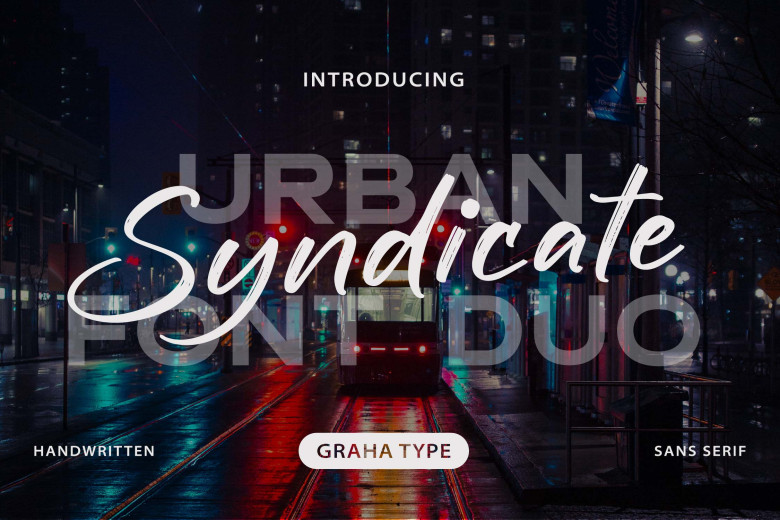
Urban Syndicate Font Duo
Urban Syndicate Font Duo is a combination of handwritten as well as sans-serif fonts that can easily be used in today’s multiple design projects. It is perfect for posters, logos, T-shirts, Facebook, and many others. That way, the versatility of typography enables it to complement images and brand logos in various forms of designs proficiently.